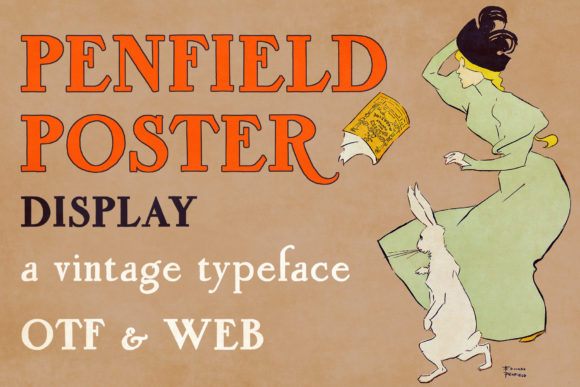
Step into a world of vintage charm and eye-catching aesthetics with Penfield Poster Font, a display typeface that evokes the timeless spirit of the roaring twenties and thirties. Designed by vertigocreative and inspired by the legendary American illustrator and designer Edward Penfield, this font family captures the essence of vintage posters, transporting you to an era of Art Deco elegance and nostalgic appeal.
Immerse yourself in the rich history and craftsmanship of Penfield Poster Font, a digital recreation of Penfield's original typeface. Carefully cleaned up and adjusted to suit modern design needs, this font retains the hand-painted feel of yesteryears, adding an authentic touch to your creative projects.
With its bold, easy-to-read characters, Penfield Poster Font is the perfect choice for crafting vintage T-shirts that ooze retro charm. Unleash your creativity and design T-shirts that tell stories, evoking memories of bygone eras.
Harness the power of Penfield Poster Font to elevate your branding efforts. Create logos and business cards that exude a sense of heritage and timelessness. Let your brand's identity shine through with a font that speaks volumes about your dedication to quality and craftsmanship.
Penfield Poster Font's versatility extends beyond vintage and retro styles. Its unique character set adds a touch of whimsy and nostalgia to contemporary designs, making it an ideal choice for invitations, posters, and packaging.